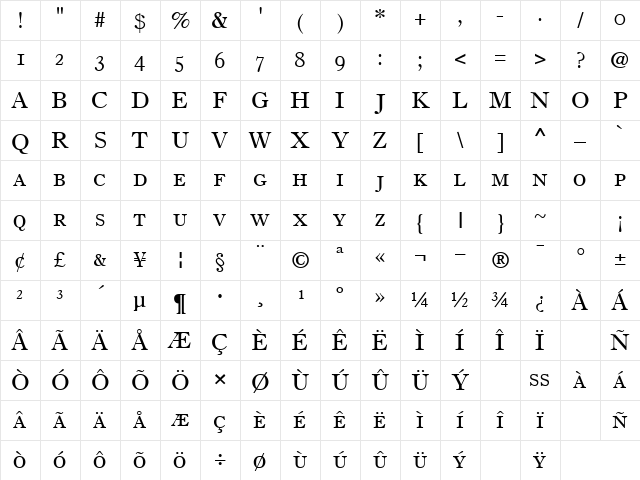
HadronCaps Normal
Design Context for HadronCaps
HadronCaps is a composed and adaptable typeface that performs quietly and consistently across a wide range of design contexts.